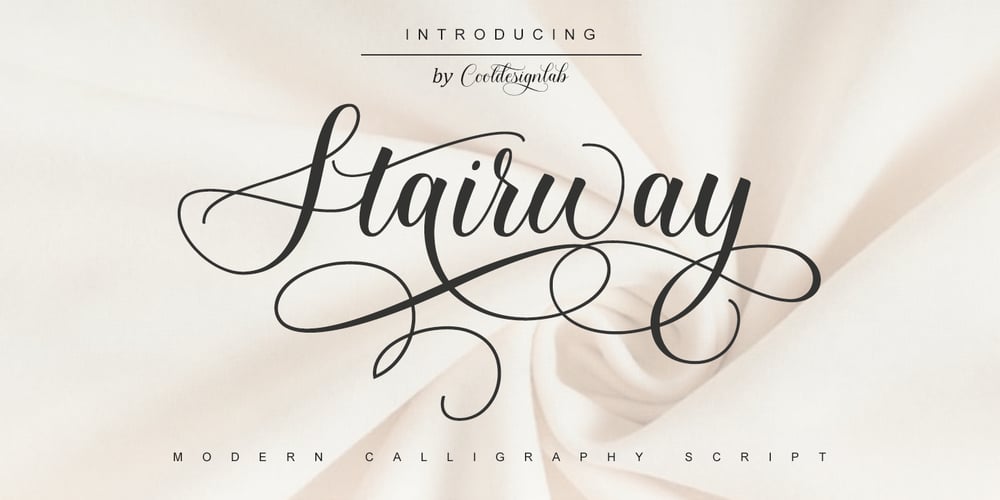
Stairway Font Family was designed by Kurniadi Saputra and published by Cooldesignlab. Stairway contains 1 styles and family package options. Stairway is a modern and elegant calligraphy script font that comes with exquisite character changes, a kind of decorative script with a modern twist, designed with high detail to present an elegant style.This font is very interesting for you to use because it is smooth, clean, feminine, sensual, glamorous, simple and very easy to read, because there are many luxurious and simple letter relationships. This font style is perfect for your various designs, such as invitations, labels, restaurant menus, logos, fashion, makeup, stationery, novels, magazines, books, greeting / wedding cards, packaging, labels and others.Stairway has 602 glyphs and 392 alternative characters, including multiple language support. With OpenType features with alternative styles and elegant ties. The OpenType features do not work automatically, but you can access them manually and for the best results required for your creativity in combining variations of this Glyph.The Open Type feature can be accessed using smart Open Type programs such as Adobe Illustrator, Adobe In Design, Adobe Photoshop Corel Draw X version, and Microsoft Word. And this font has provided PUA unicode (special code font). So that all alternative characters can be easily fully accessed by the craftsman or designer.